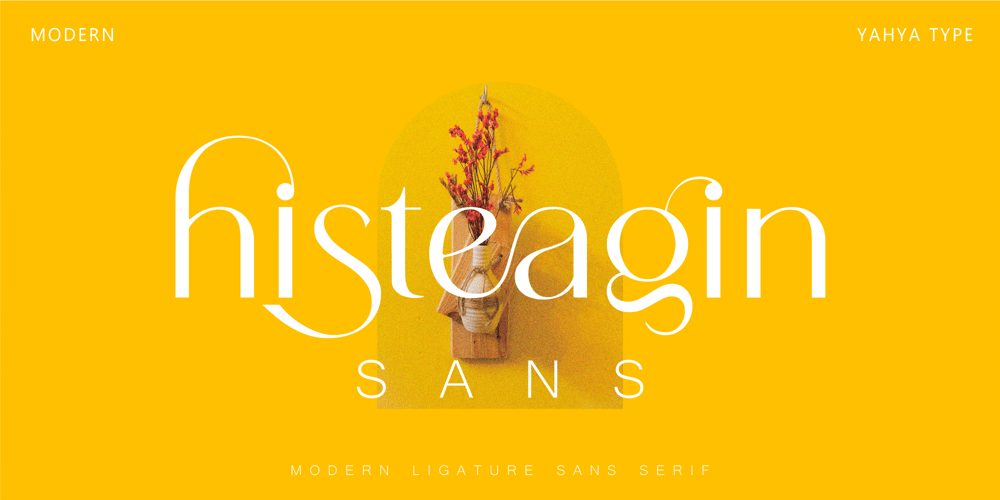
Histeagin Sans Font Family was designed by Yahya Qara and published by Yahya Type. Histeagin Sans contains 2 styles and family package options. Histeagin Sans – Sans serif version of Histeagin.Histeagin Sans – this style works well for branding projects, logo, wedding designs, social media posts, advertisements, product packaging, product designs, label, photography, watermark, invitation, or whatever project you’re working on.WHAT’S INCLUDED? Uppercase & lowercase letters Numbers, punctuation Ligature & Huge Stylistic alternate Multilingual support. Still got a question? Send me a message and I’ll be happy to answer!qura.yahya@gmail.com